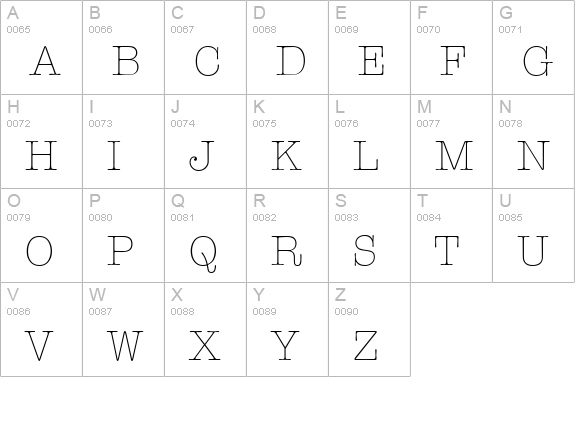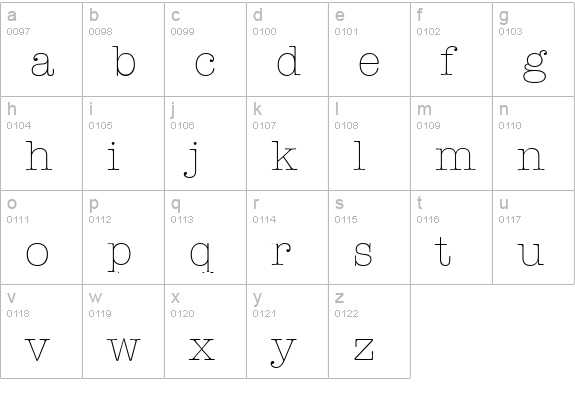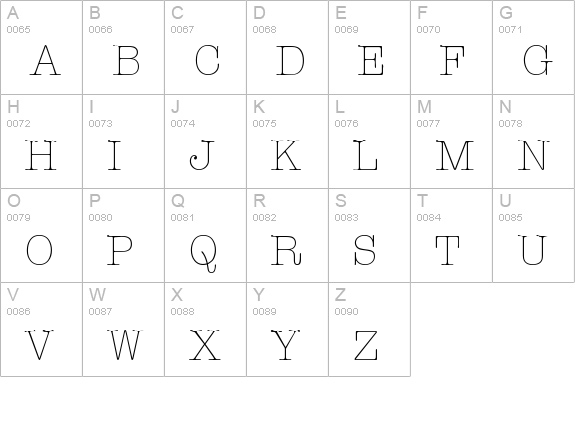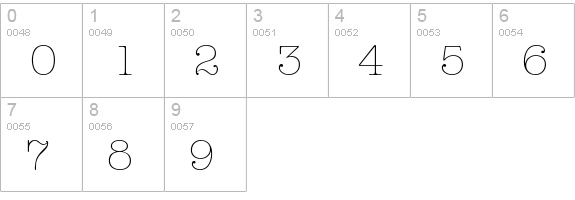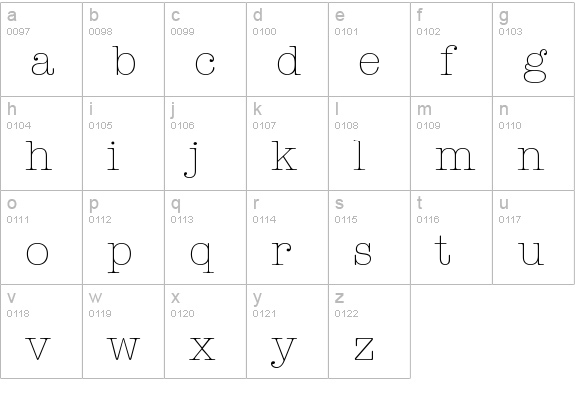
TypewriterSerial-Xlight-Regular Font Details
TypewriterSerial-Xlight-Regular is the standard, neutral variant in the TypewriterSerial typeface family \xE2\x80\x94 well suited to general body text, paragraphs, and standard typographic work.
TypewriterSerial-Xlight-Regular font is a classic and sleek typewriter-style typeface that exudes a sense of vintage charm and nostalgia. With its clean lines and minimalist design, this font is perfect for adding a touch of retro elegance to your projects. Its light weight gives it a delicate and refined appearance, making it ideal for use in various creative works. This font is available for free download at FontsMarket.com, where you can easily access and incorporate it into your design projects. Whether you're creating invitations, posters, branding materials, or any other creative endeavor, TypewriterSerial-Xlight-Regular font will surely stand out and make a statement. Add a hint of sophistication and old-school flair to your designs with this versatile and timeless typeface.